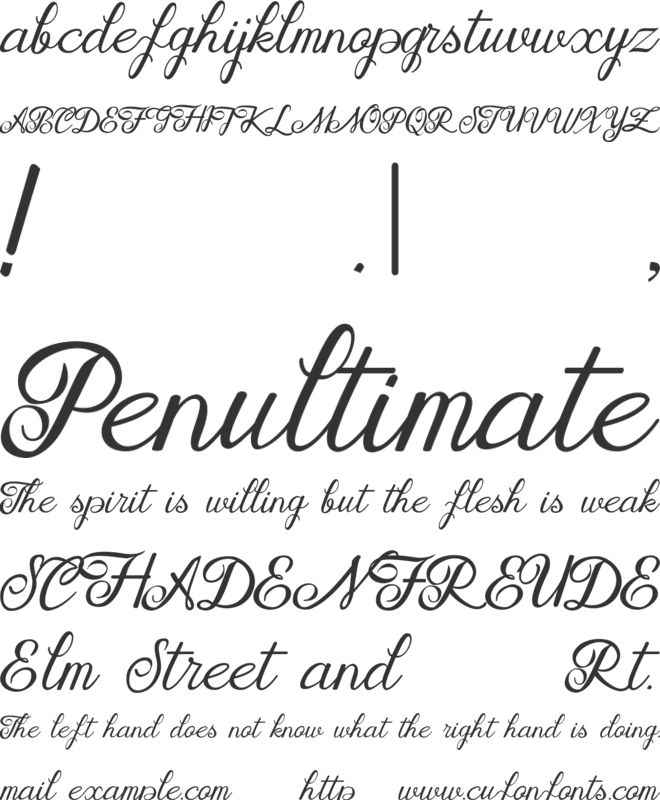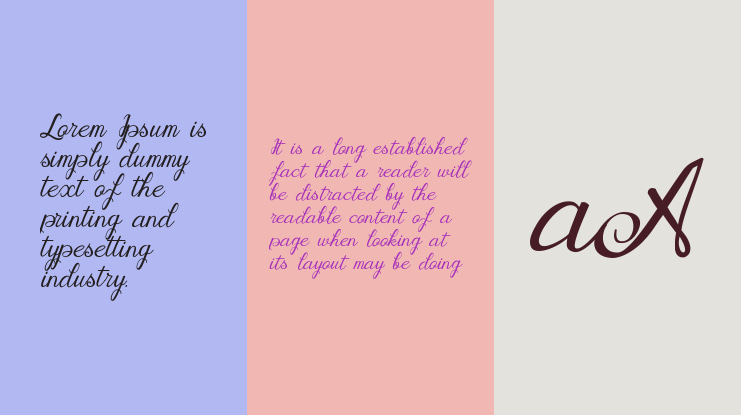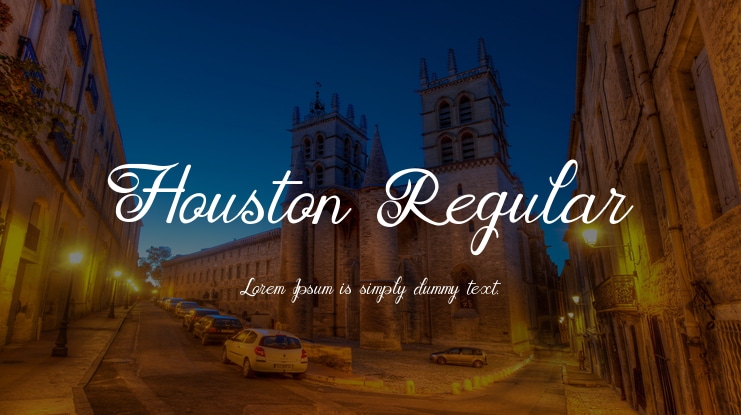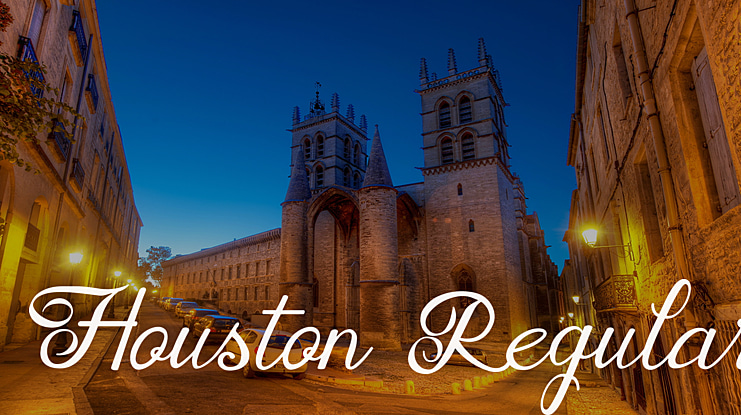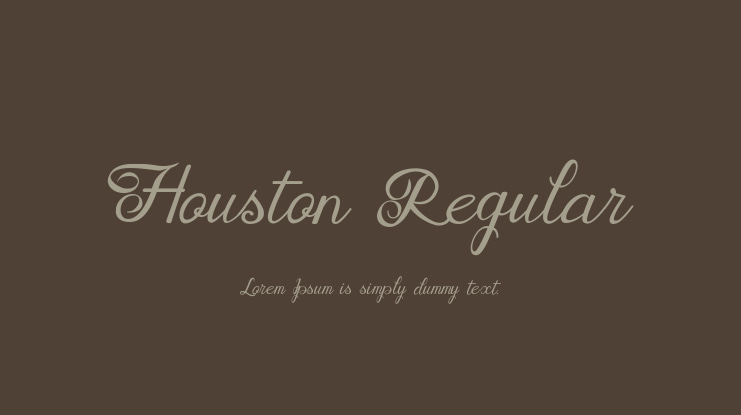
Houston Regular Font
Introducing Houston handwritten font in modern calligraphy style.This trendy elegant brush font will allow to create awesome branding materials, beautiful logos, cards, quotes, wedding invitations, overlays, presentations and any other interesting projects.